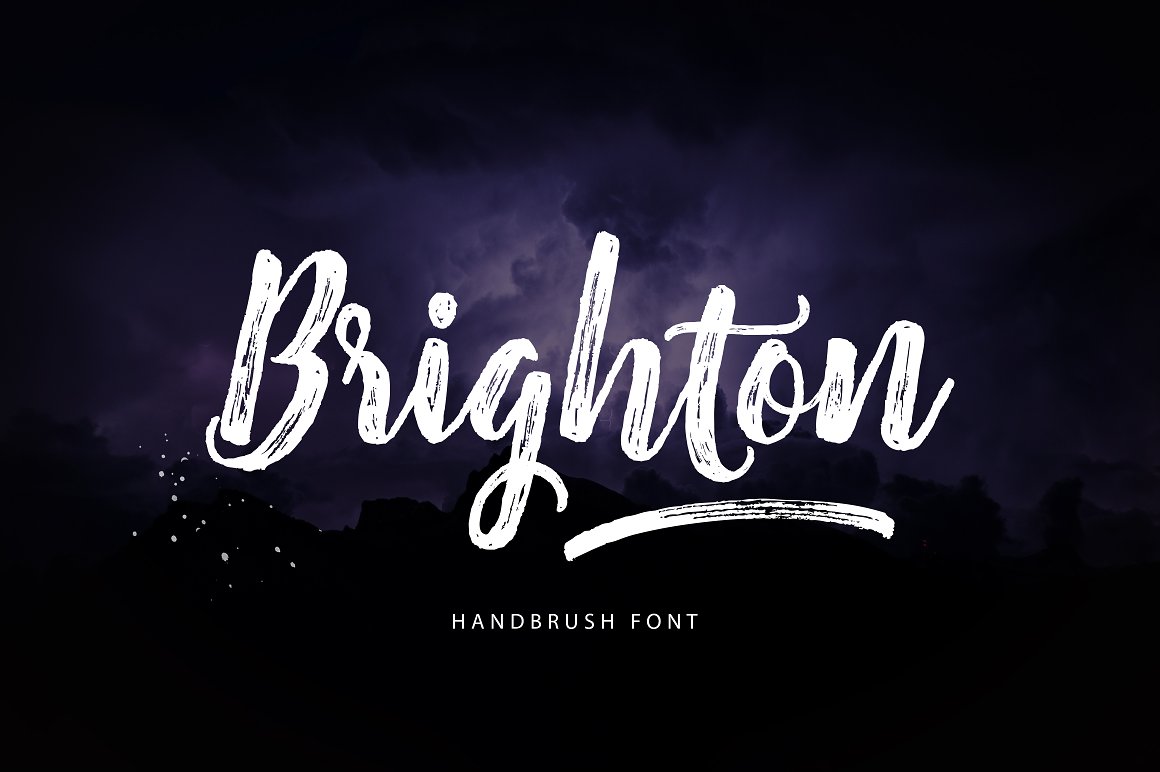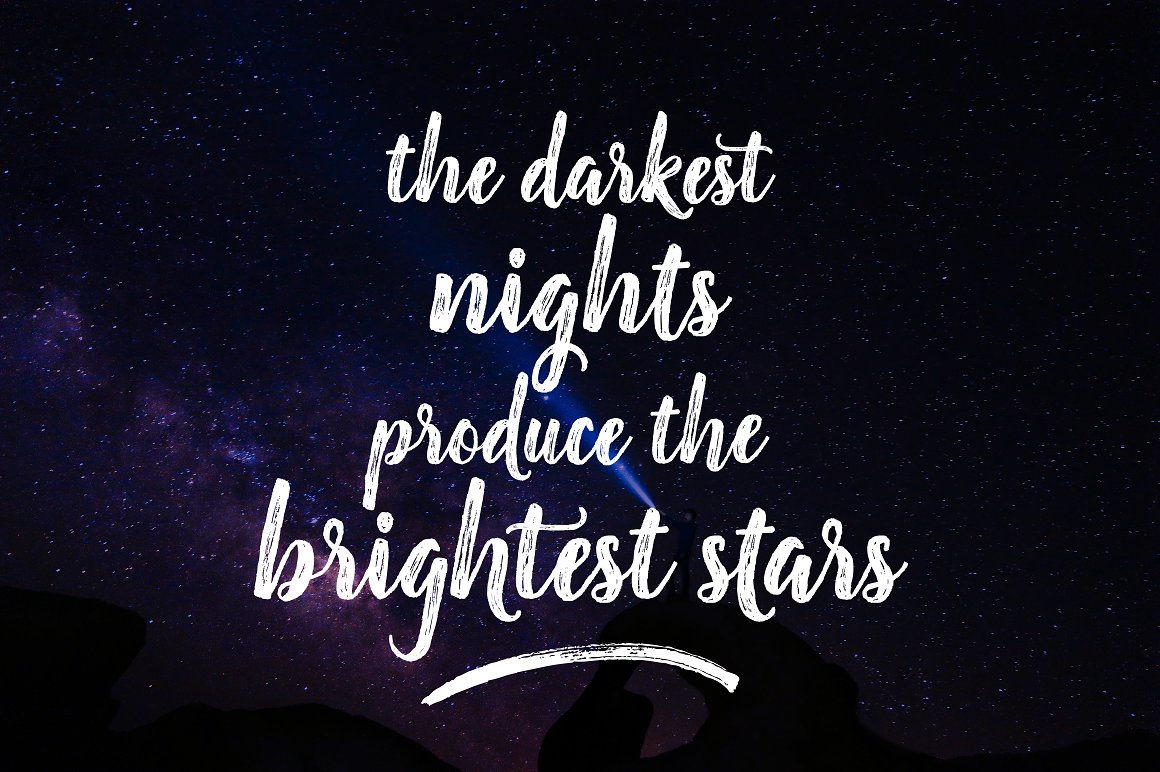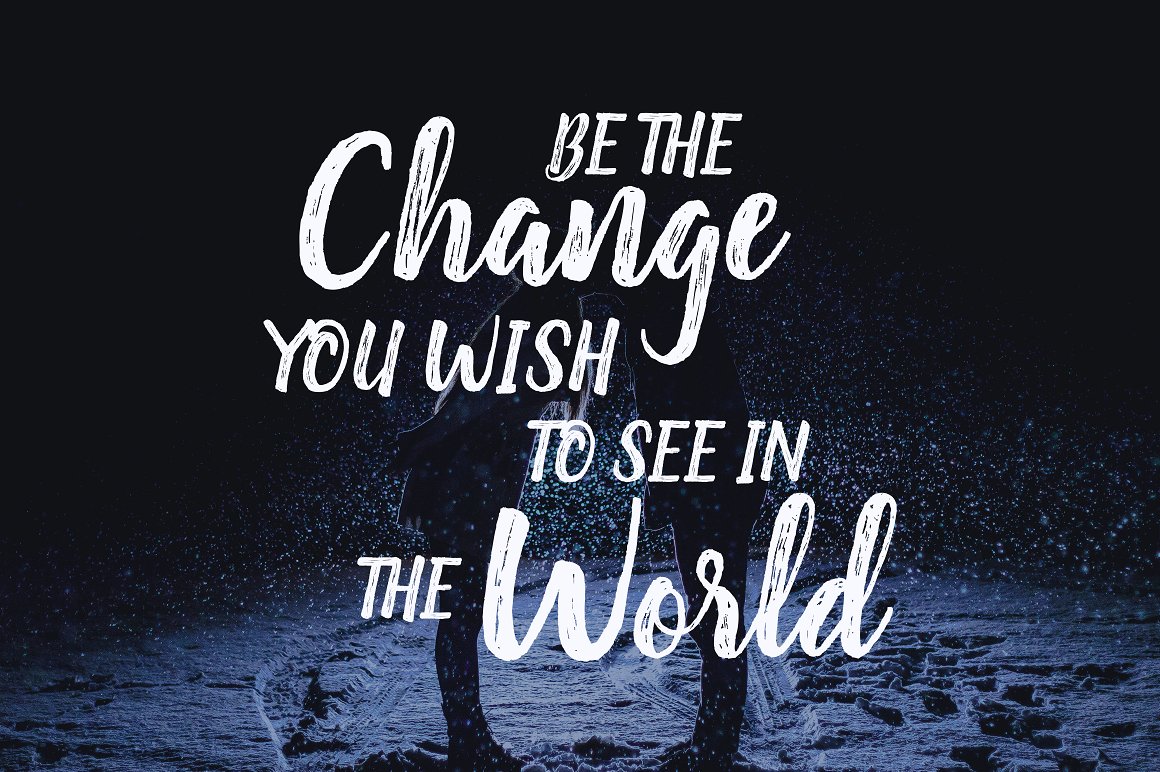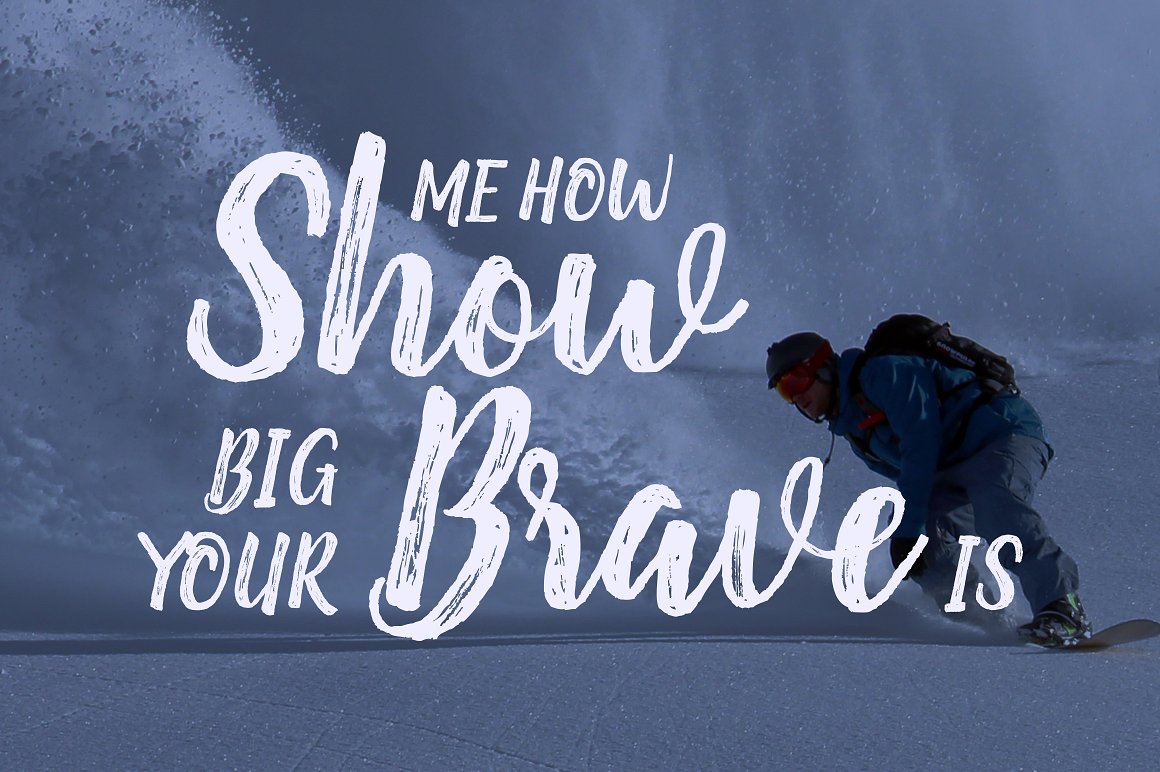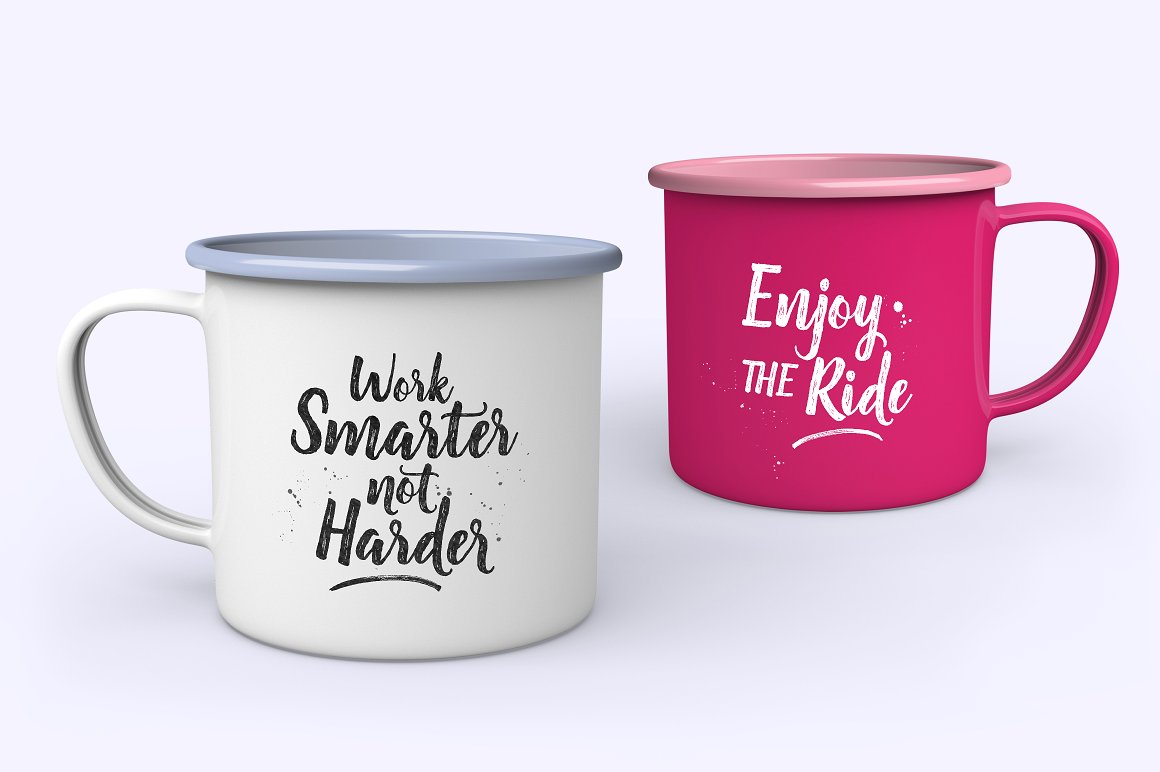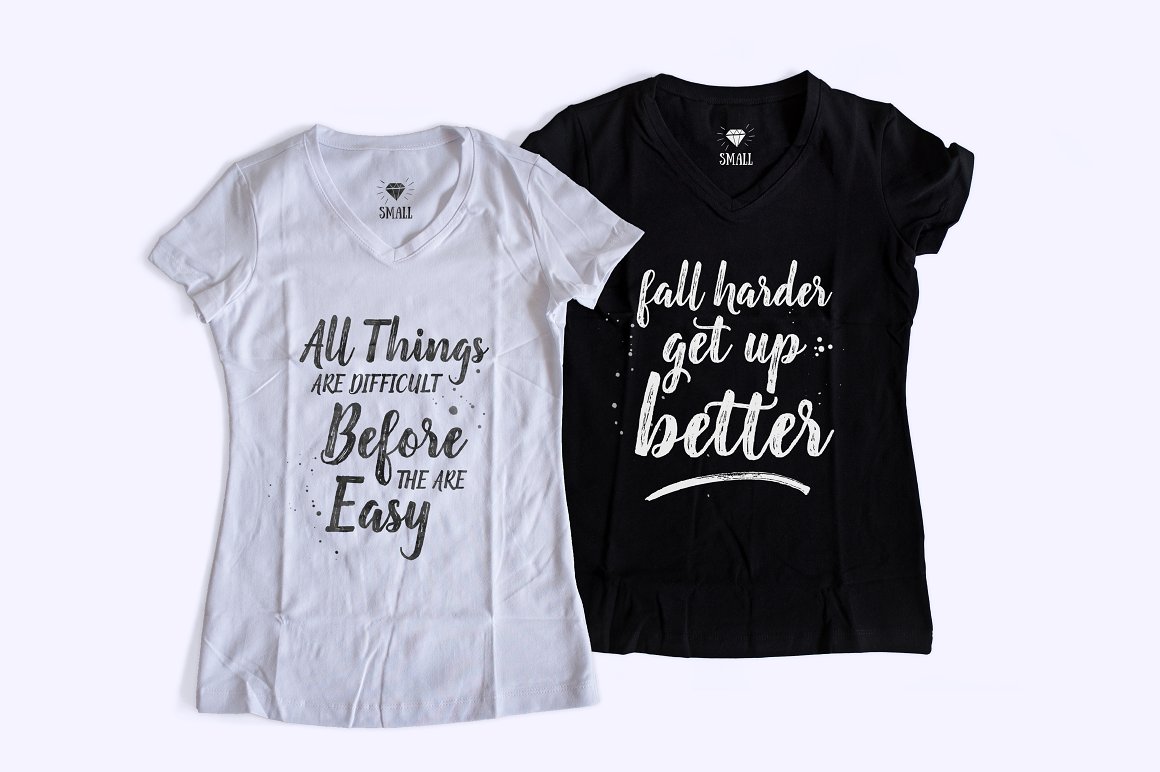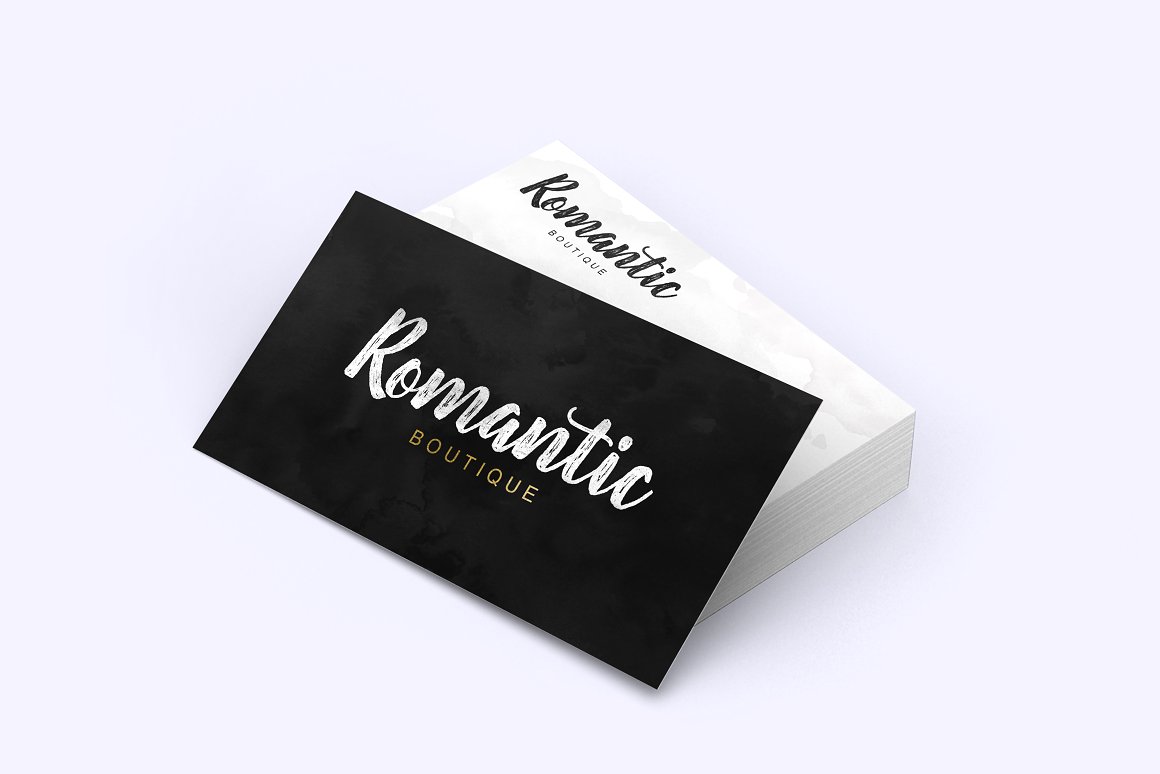
HomeScript FontsBrighton Font Script Fonts Brighton Font FacebookXPinterestWhatsApp Brighton Font Poster 2 Brighton Font Poster 3 Brighton Font Poster 4 Brighton Font Poster 5 Brighton Font Poster 6 Brighton Font Poster 7 About Brighton Font Brighton is a fresh clean brush font. DOWNLOAD NOW People also explored Compaq 1980 Font Sullthan Riyad Font Rosalie Font Monalls Font Sweetness Font Tygodnik Dartya Font Giraffe Genevieve Font 305 0 TagsBrighton Font Previous articleClaudia FontNext articleBrightest Font LEAVE A REPLY Cancel reply Comment: Please enter your comment! Name:* Please enter your name here Email:* You have entered an incorrect email address! Please enter your email address here Website: Save my name, email, and website in this browser for the next time I comment. Personal Use Free A New Nattyla Personal Use Free Read more about this font I Am Exceptional Personal Use Free Read more about this font Black Jalal Personal Use Free Read more about this font Broodfath Personal Use Free Read more about this font BLOG Modern Sans-Serif Fonts That Brands Love in 2025 In 2025, modern sans-serif fonts remain a top choice for brands looking to project clarity, professionalism, and... How to Install and Use Fonts on Windows, macOS, and Web Projects Fonts That Capture the Spirit of New York City Free vs Paid Fonts: Why Investing in Premium Fonts Is Worth It